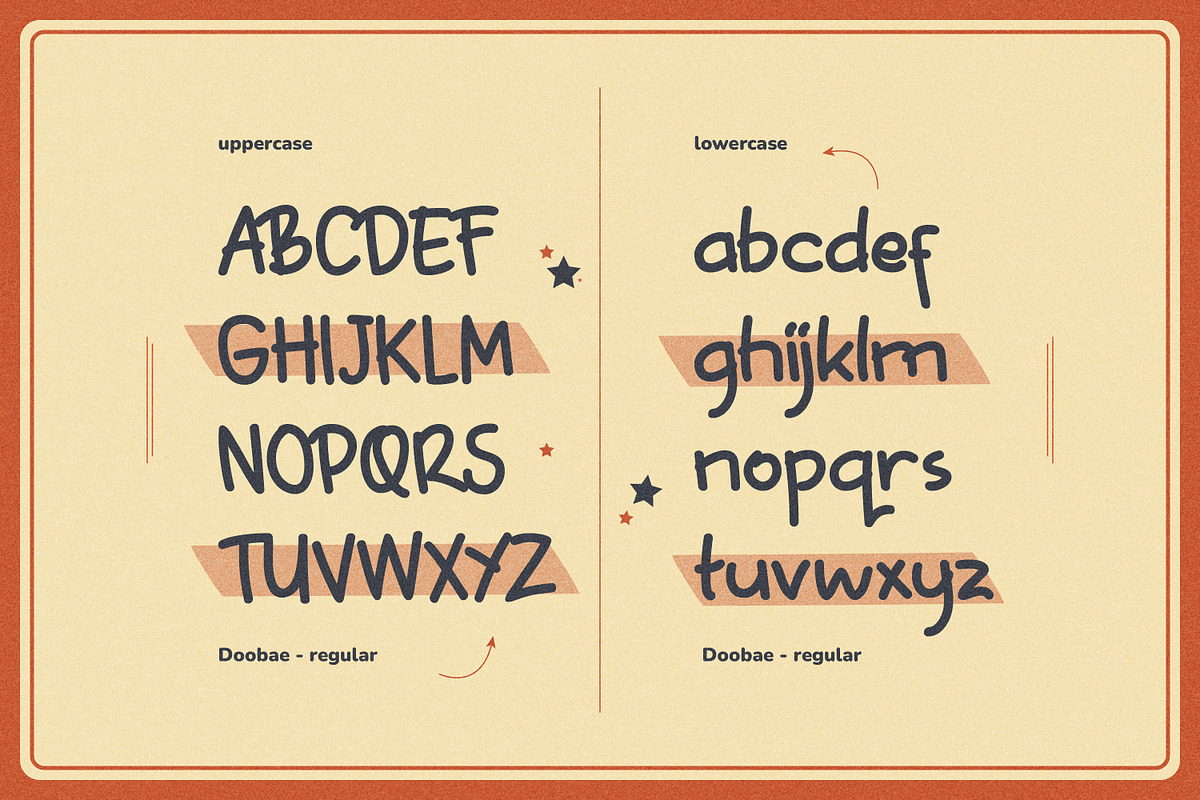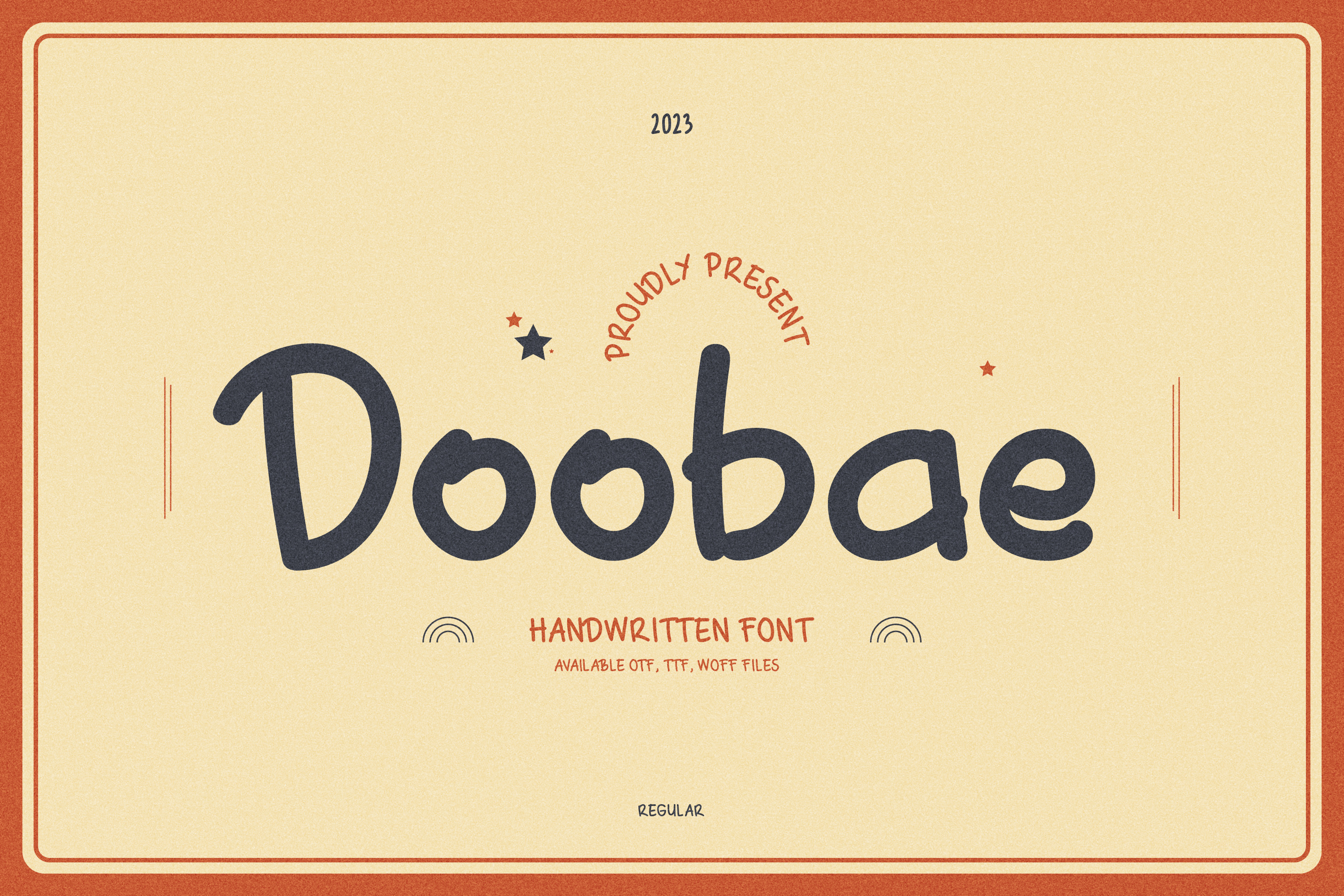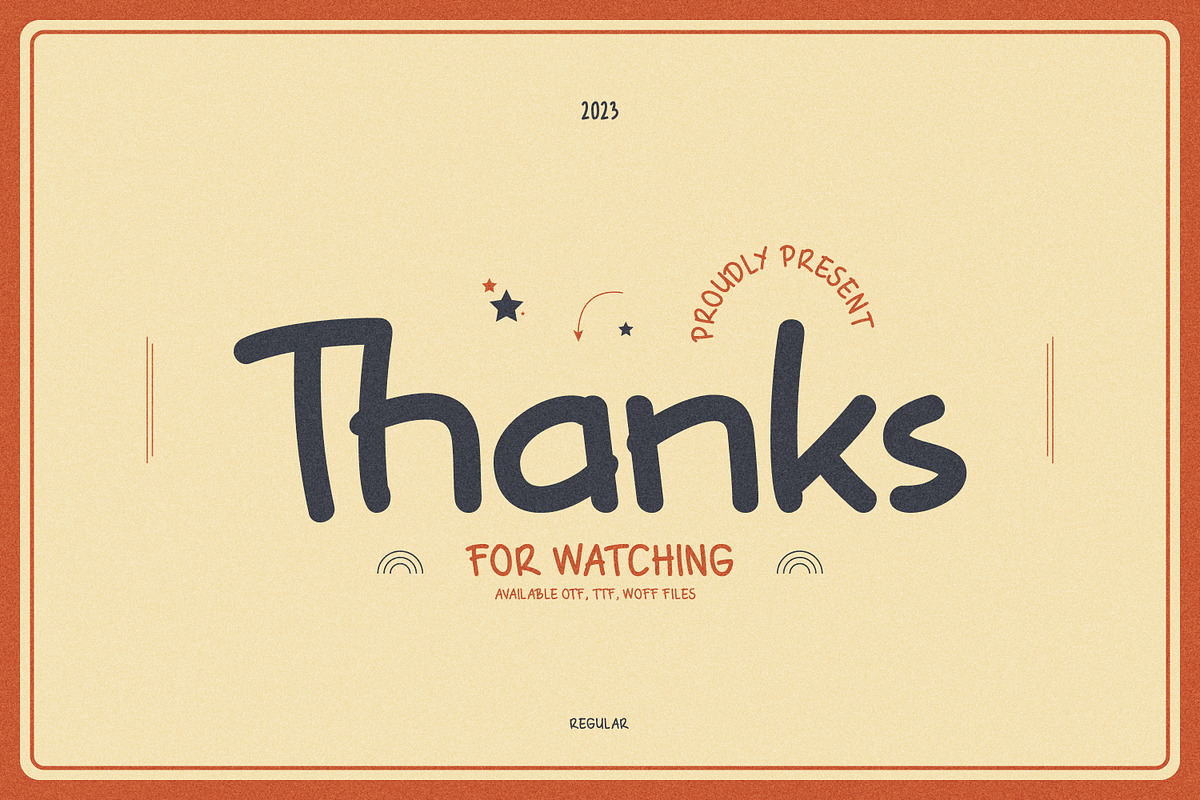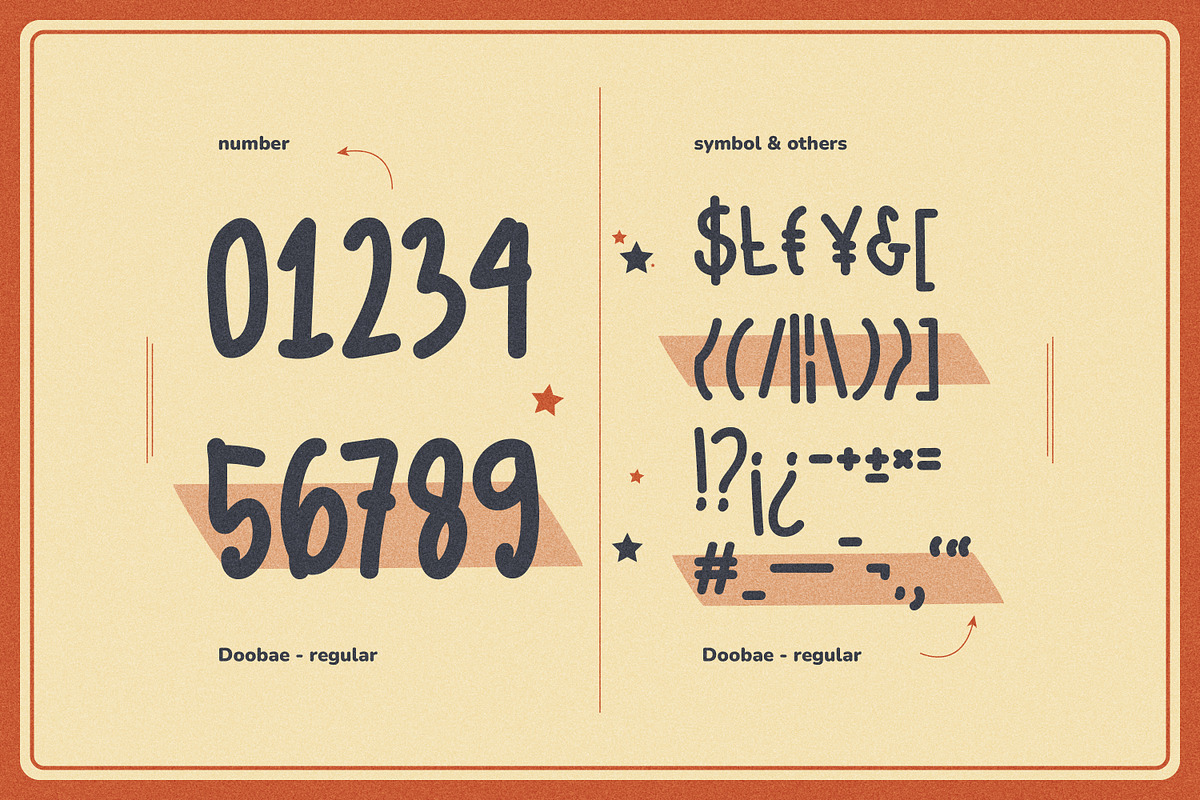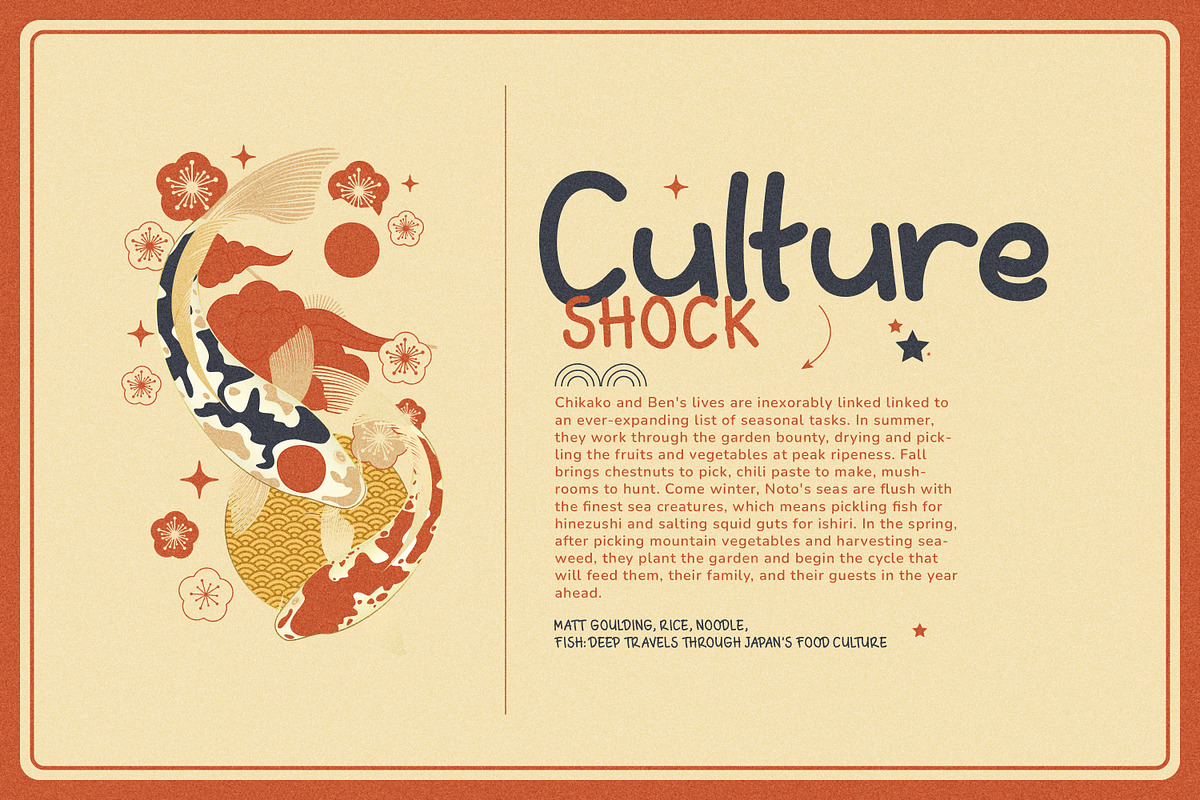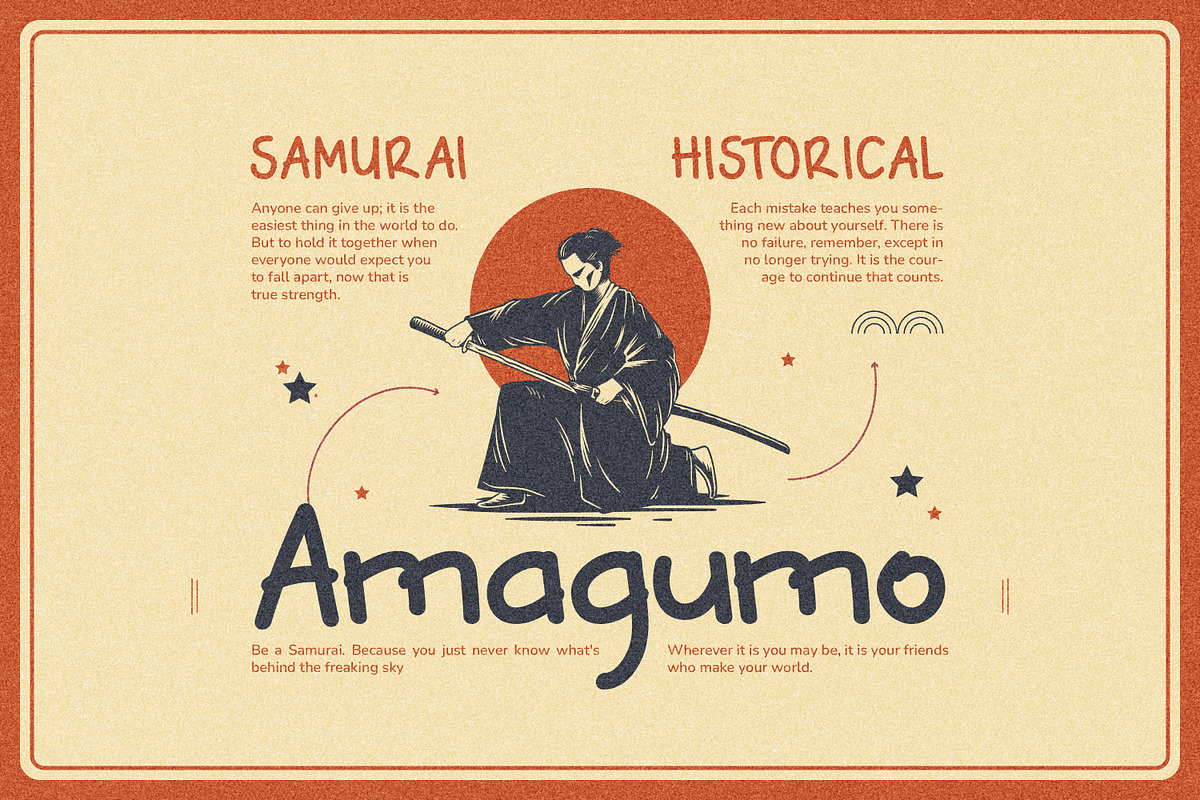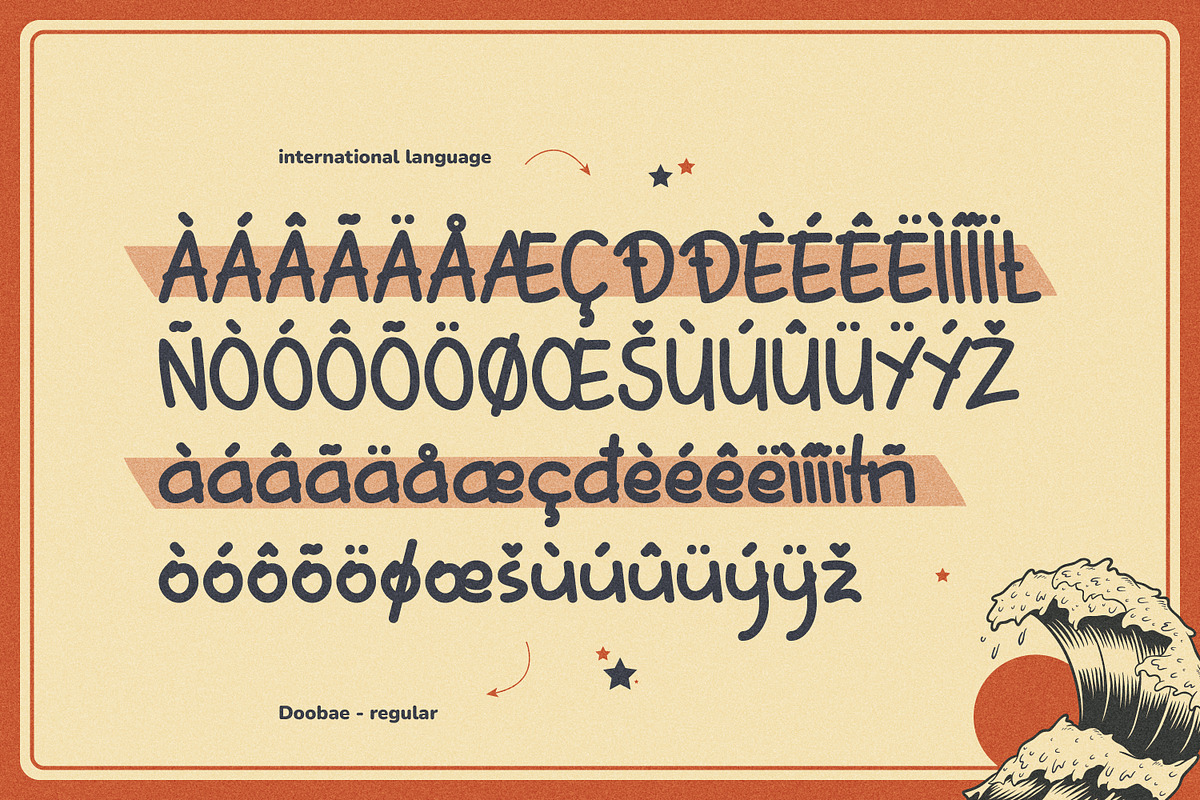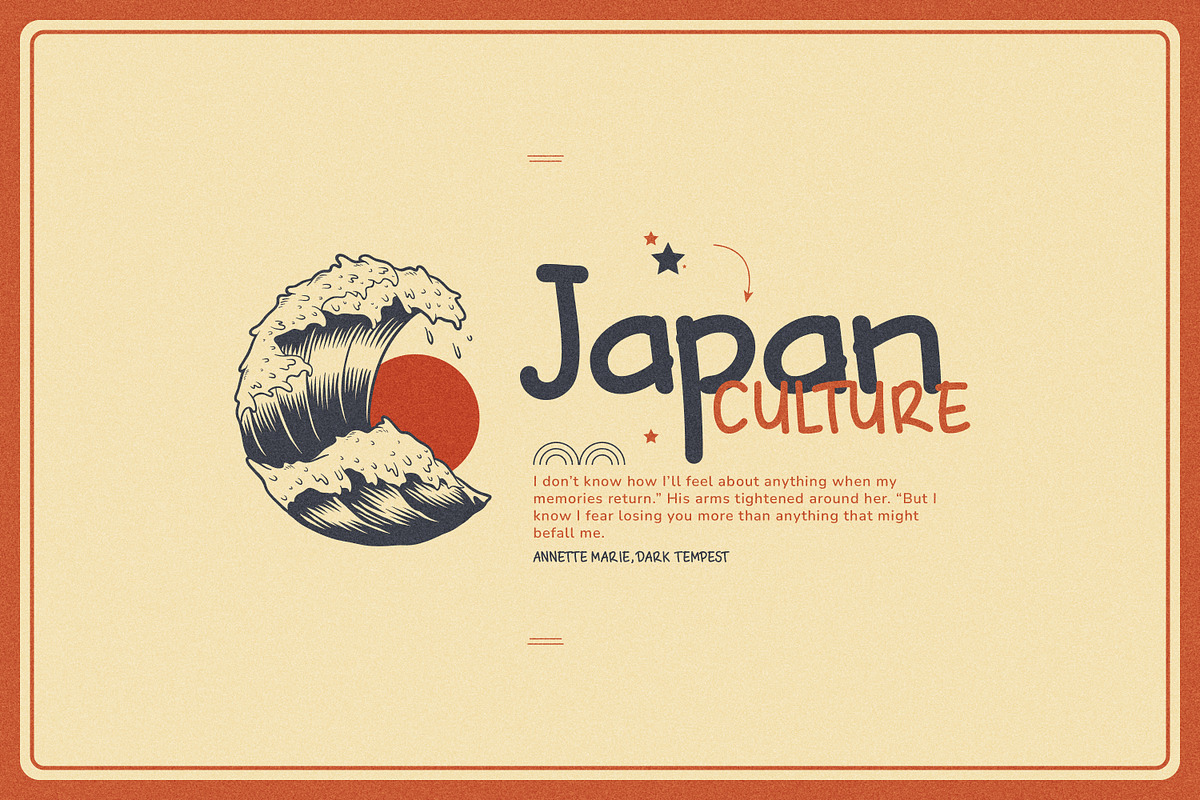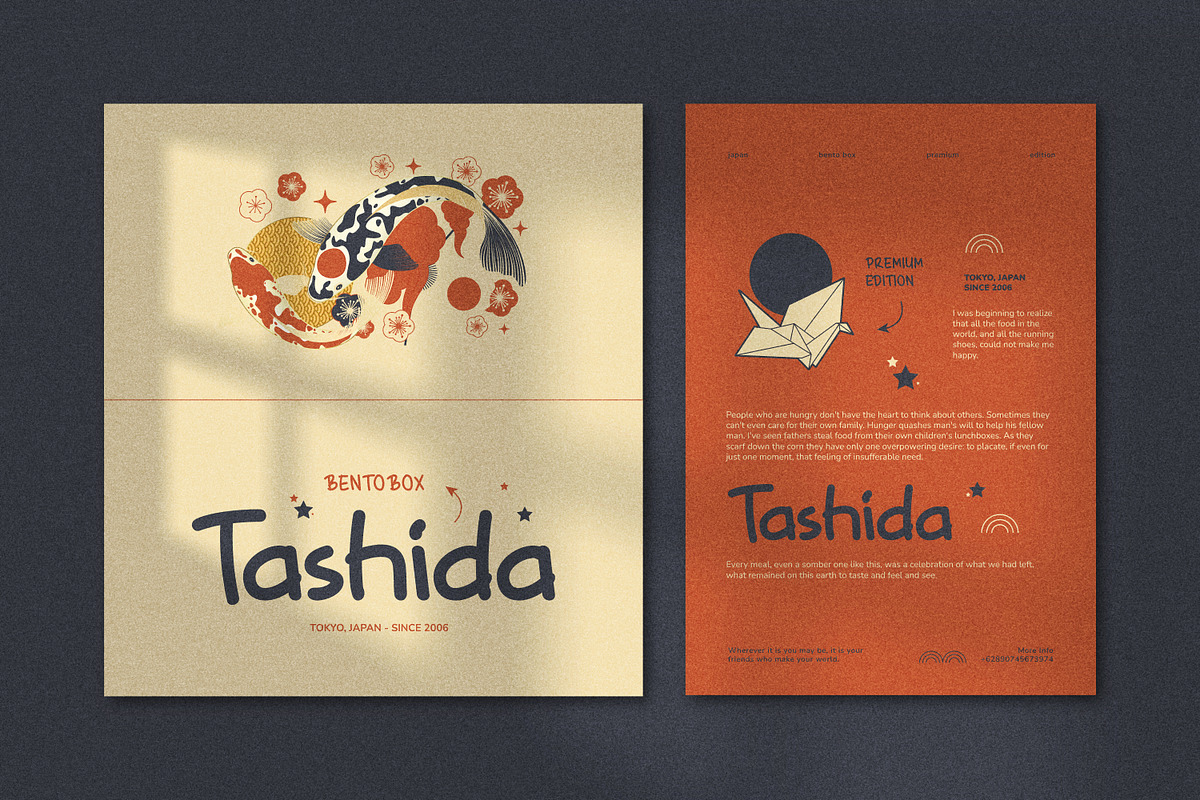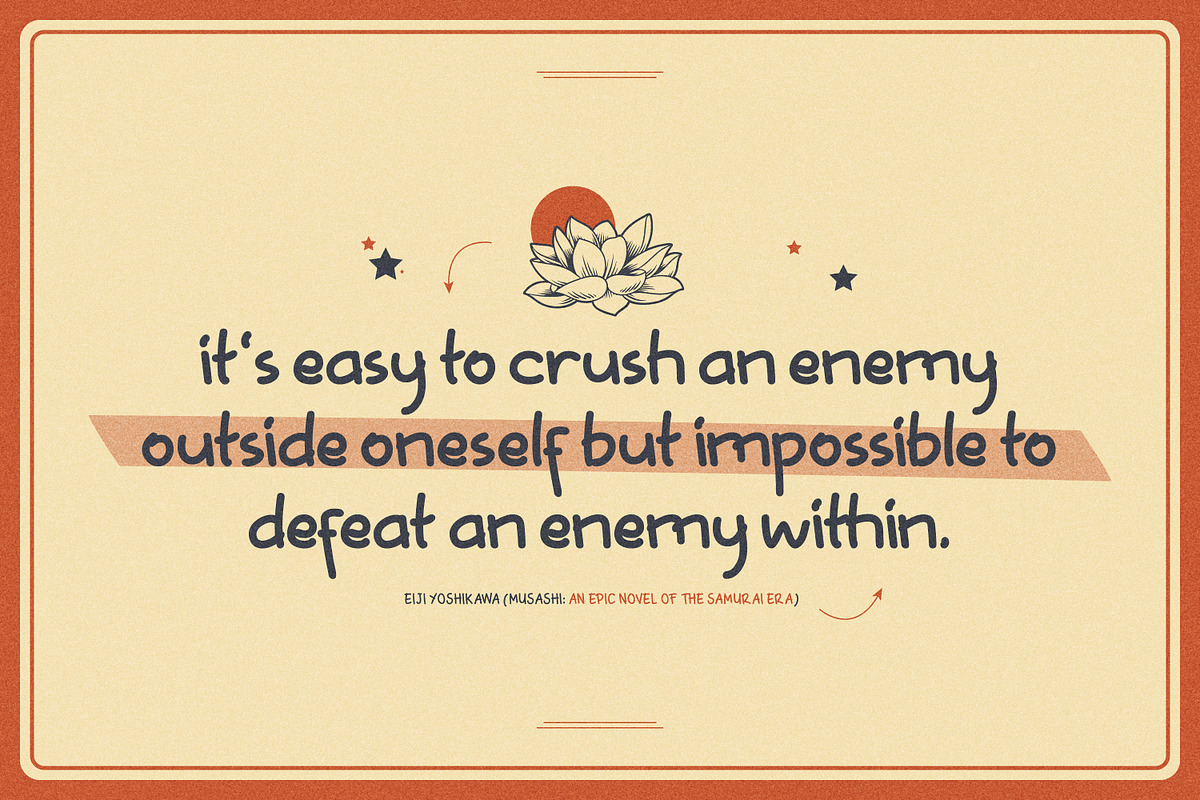
Doobae Fun Handwritten Font
Doobae is a playful and fun handwritten font, perfect for bringing any text to life! Use this dazzling typeface to complement wedding invitations, birthday cards, skincare company branding, food labels, logos, or anything else!